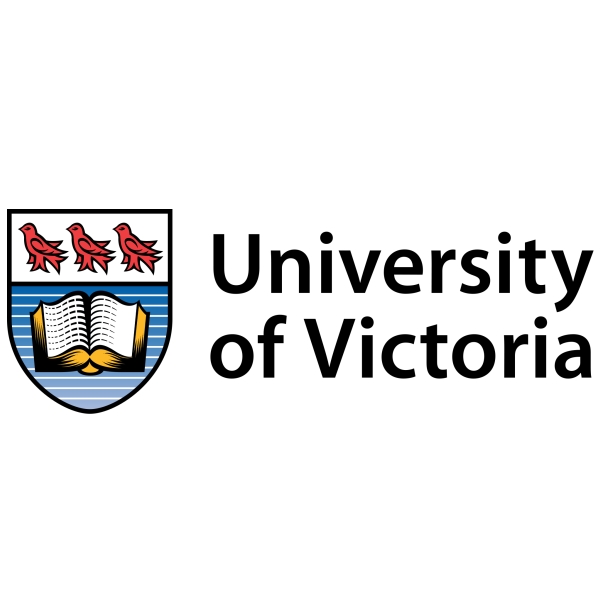
University of Victoria Font
The wordmark of the university is designed with the font Myriad SemiBold, a humanist sans serif typeface created by Robert Slimbach and Carol Twombly for Adobe Systems. You can find more information about this font here.